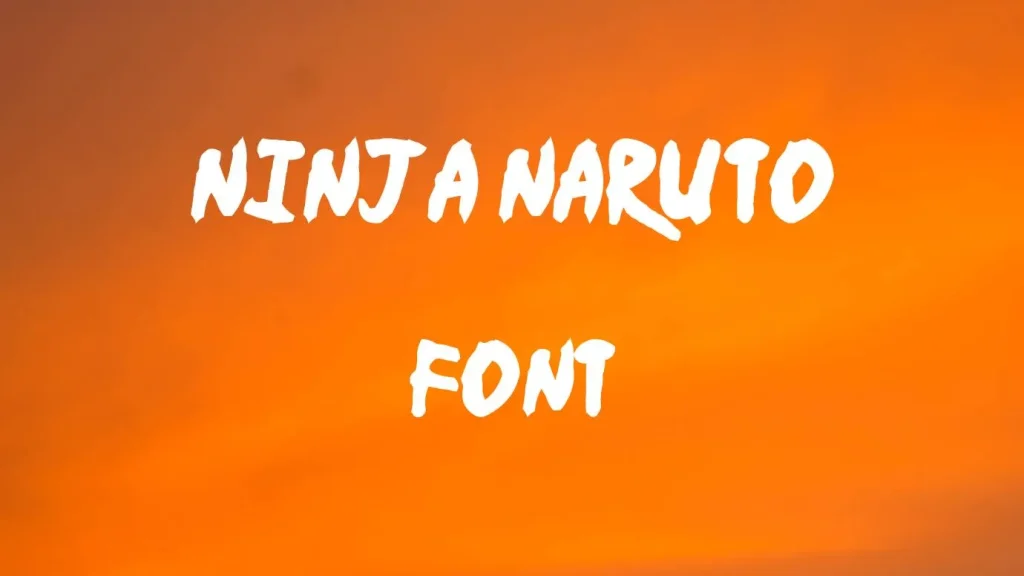
Sk89q created Ninja Naruto Font that is actually a brush text style. Along with numerals and characters, this font has lowercase and uppercase characters. The texture and clarity of the Ninja Naruto Font style is fantastic.
This typeface is a great option if you are searching for a classy and fashionable style for your next project. This font design may also be used to pair with other fonts to enhance the beauty of your project's layout.
It includes contemporary designs and glamorous modern patterns that can be used to create many different projects.
The letters are all exceptionally sharp and have a clean design. The textual style incorporates both upper and lowercase letters, as well as numbers and symbols. This font style can make a good combination paired with asap font.
Many web originators utilize this dazzling and eye-catching font in each field of the plan like websites and blog headlines, titling of planning purposes, and so on.
This classic brush script typeface has many features. It contains 69 gorgeous glyphs and 95 stylish characters.
This typeface is best for use in different designs like book covers, logos, making reports, and other multiple tasks.